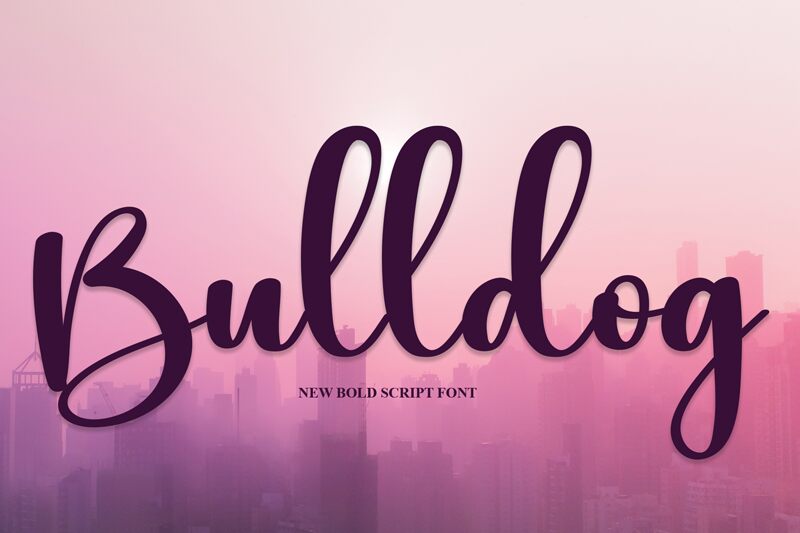
Bulldog
Bulldog, a captivating calligraphy font designed by Scratchones, adds an elegant touch to any project. With its semi-light weight, this font exudes sophistication and refinement.
Perfect for wedding invitations, event posters, or high-end branding materials, Bulldog lends a graceful and artistic flair. Its fluid strokes and ornate details make it ideal for expressing creativity and class in various designs.
Whether used in digital or print media, Bulldog is sure to leave a lasting impression with its unique style and delicate charm.
The latest style letters are perfect for wall displays, wedding invitations, social media post logos, advertisements, product packaging, product designs, labels, photography, watermarks, invitations, stationery, and any project that requires taste handwriting.